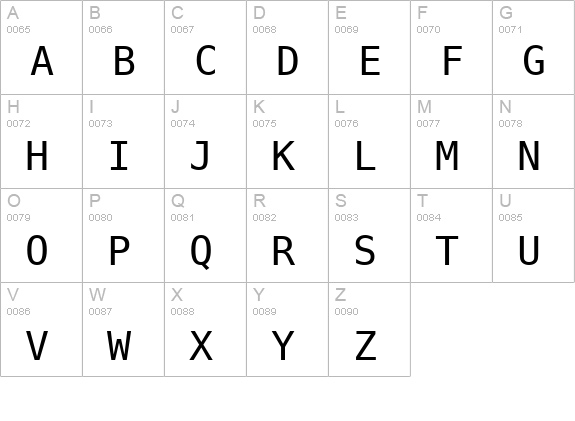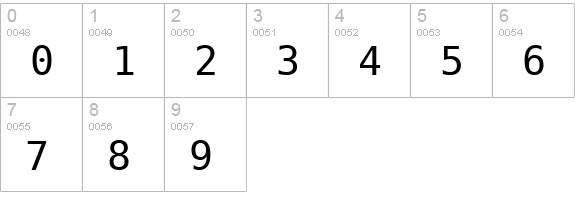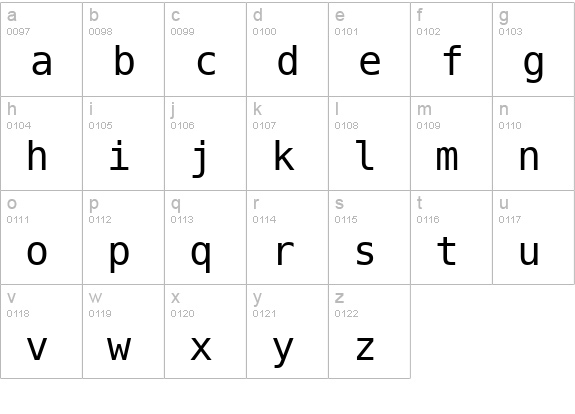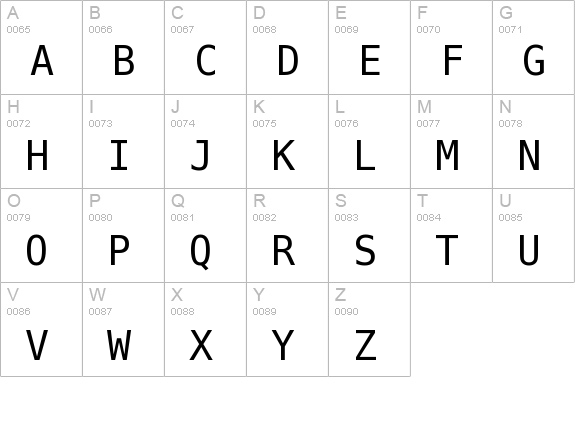
Bitstream Vera Sans Mono is a versatile monospaced font designed for optimal legibility and readability. Its clean and simple design makes it a popular choice for coding, programming, and technical documents. The font features uniform character widths, making it ideal for aligning text in columns and tables. With a modern and professional appearance, Bitstream Vera Sans Mono is suitable for a wide range of applications. One of the best things about Bitstream Vera Sans Mono is that it is completely free to use. Whether you are a student, a professional, or a hobbyist, you can download this font for no cost at FontsMarket.com. Enjoy the convenience and flexibility of this high-quality font without any financial burden. Make your projects stand out with Bitstream Vera Sans Mono today!